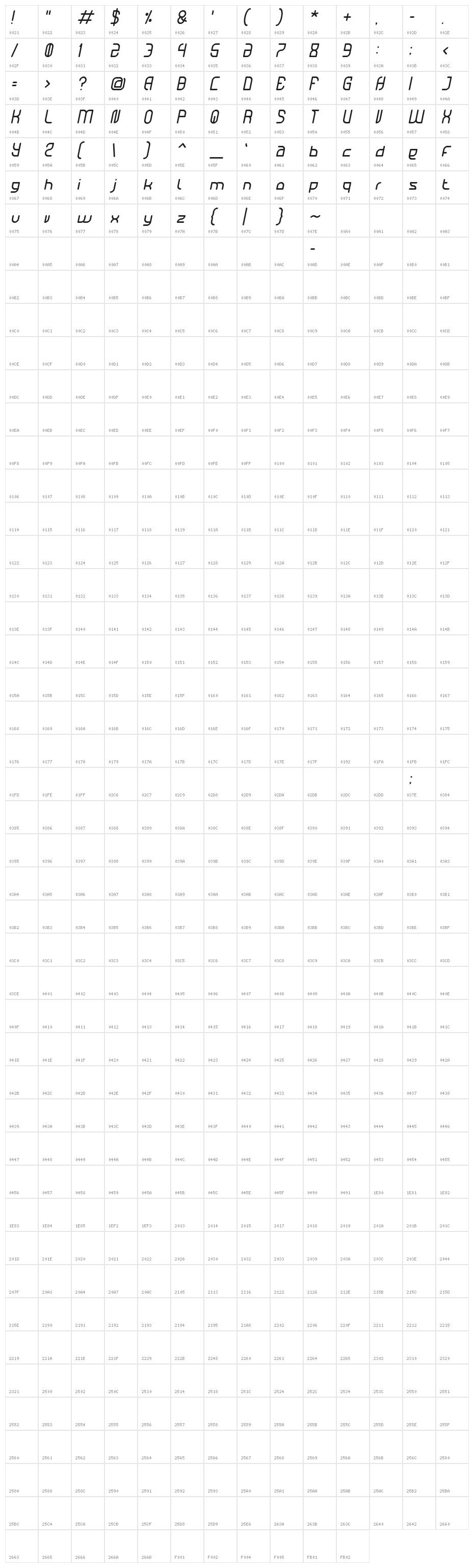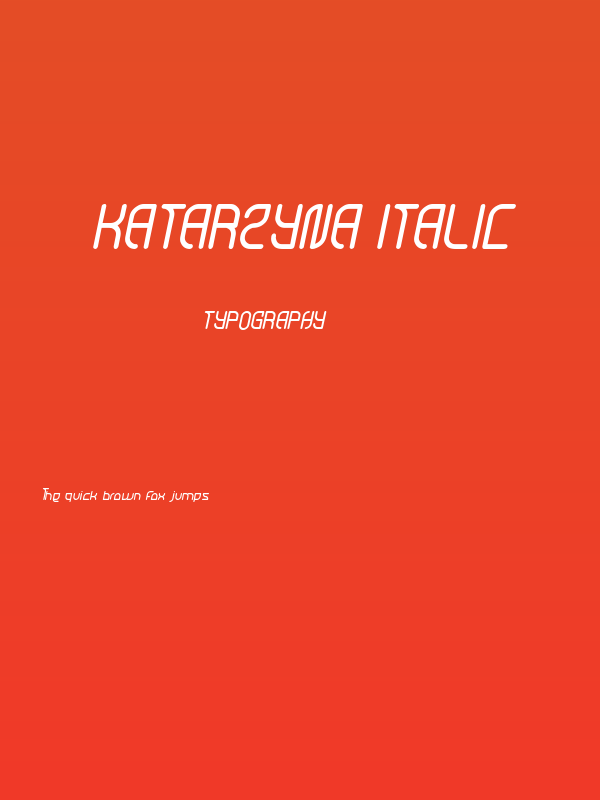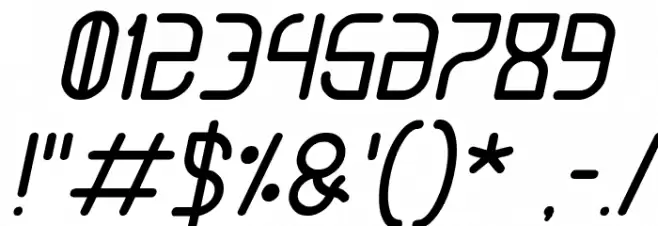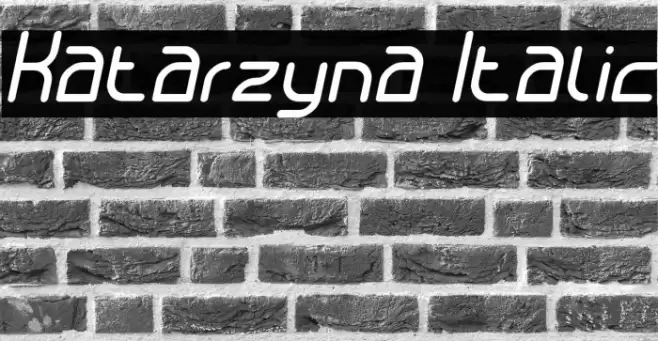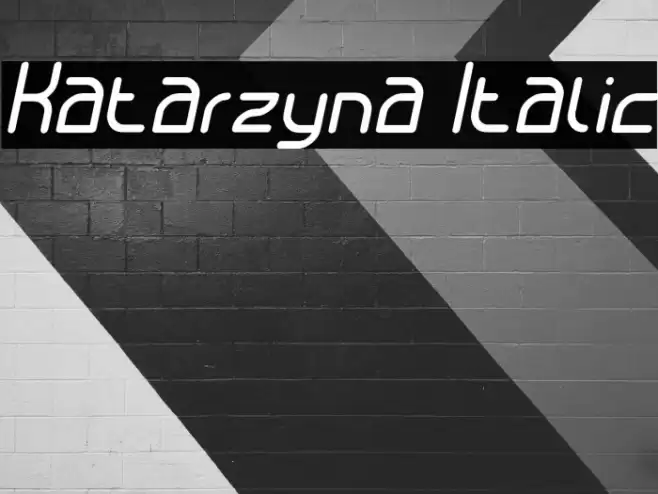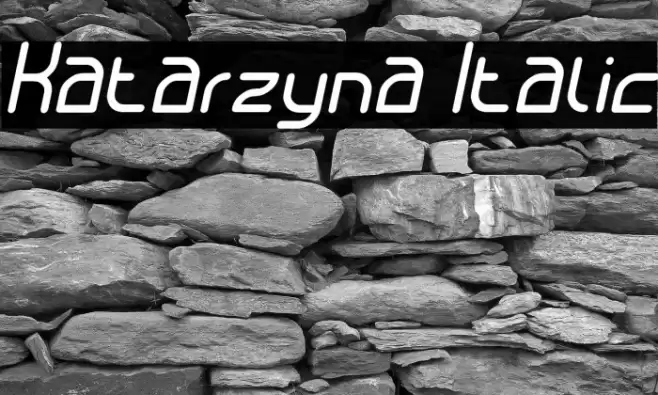
Katarzyna Italic Font
This font features a sleek, modern design with a distinct italic slant, giving it a dynamic and forward-moving appearance. The characters are rounded with a consistent stroke width, creating a harmonious and fluid look. The uppercase and lowercase letters maintain a uniform style, with slightly elongated forms that enhance readability. The numerals and special characters are well-integrated, matching the overall aesthetic with their smooth curves and clean lines. This font's contemporary style makes it suitable for a variety of applications, from digital interfaces to print media.